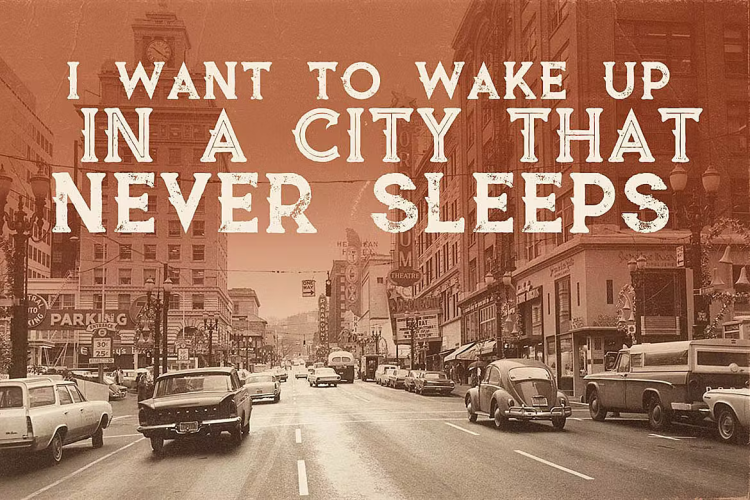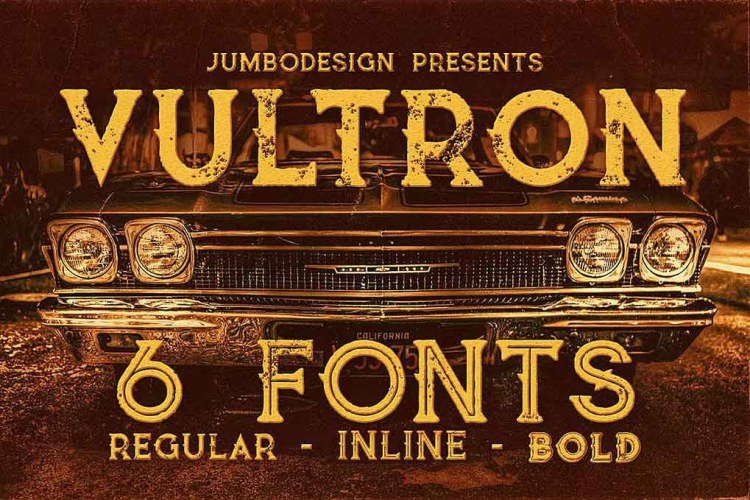
Vultron Vintage Style Font
Unique retro or vintage style custom font with 6 styles: regular and grunge, inline and inline grunge, bold and bold grunge.
Vultron Vintage Style Font is a Serif Fonts font that brings a professional and versatile look to your projects. Unique retro or vintage style custom font with 6 styles: regular and grunge, inline and inline grunge, bold and bold grunge.